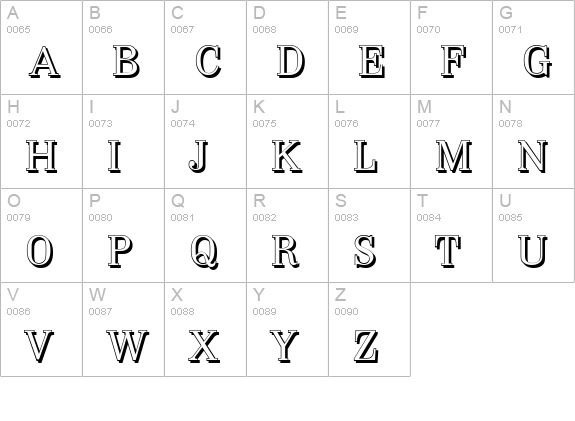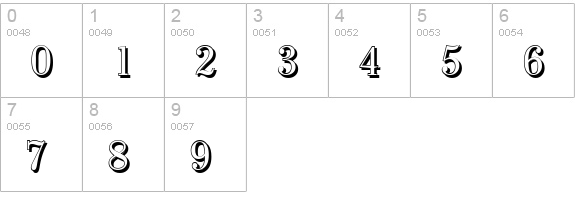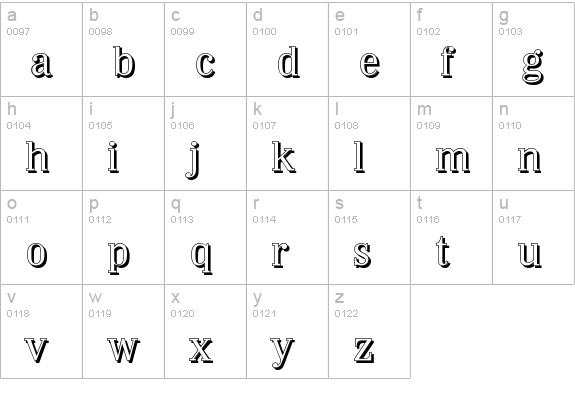
WichitaShadow-Regular Font Details
WichitaShadow-Regular is the standard, neutral variant in the WichitaShadow typeface family \xE2\x80\x94 well suited to general body text, paragraphs, and standard typographic work.
WichitaShadow-Regular is a versatile and elegant font that exudes a timeless charm. Its distinctive shadow effect adds depth and sophistication to any design project. This unique typeface strikes the perfect balance between classic and modern aesthetics, making it suitable for a wide range of applications. The clean lines and sharp angles of WichitaShadow-Regular make it ideal for creating eye-catching headlines, logos, posters, and more. Whether you're working on a branding project, editorial design, or website layout, this font is sure to make a bold statement. And the best part? WichitaShadow-Regular is available for free download at FontsMarket.com. Don't miss out on the opportunity to add this stunning font to your collection without spending a dime. Elevate your designs with WichitaShadow-Regular today!